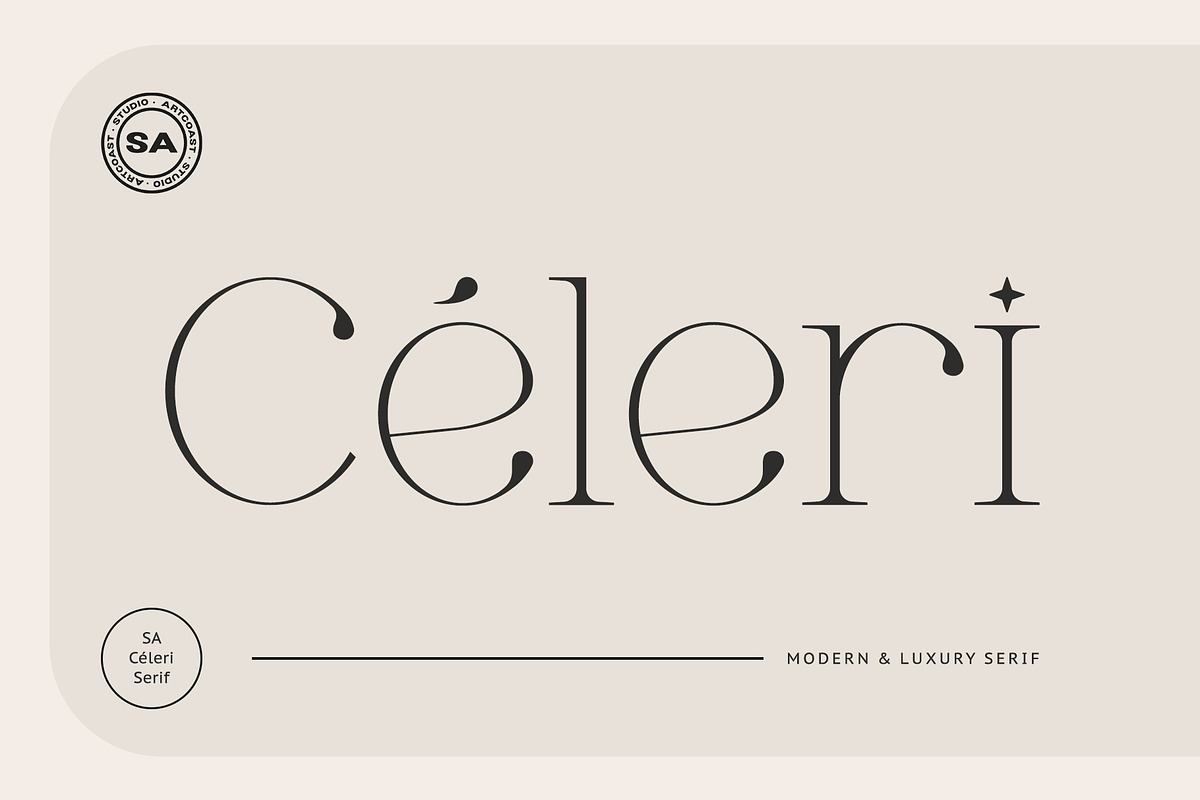
Céleri - Modern Serif Font Free Download is a sleek and elegant serif typeface designed with a contemporary edge. Featuring high contrast strokes, sharp serifs, and a clean structure, this font is perfect for luxury branding, editorial design, websites, and upscale marketing materials. Its modern yet timeless design ensures that your typography stands out with sophistication and professionalism.
Using the Céleri - Modern Serif Font Free Download adds a refined, stylish touch to your typography. Whether you're designing a modern logo, crafting an editorial layout, or working on premium promotional materials, this font enhances your work with a sleek and polished appearance.